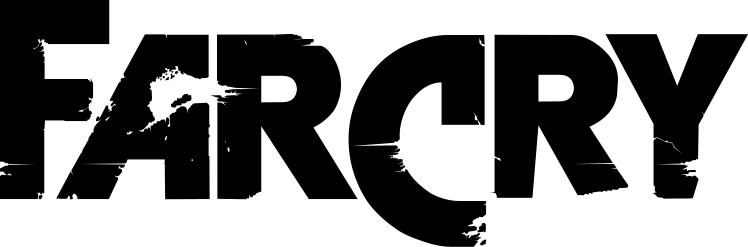
FarCry Font
Designed byMike Gumby Anderson
Today’s font is an eroded font named Far Cry. Most of the characters have a faded look which will give a punk, mysterious, scary, and edgy feel to the reader.
You can use it to write channel banners, murder documentary texts, horror movies and documents, and mystery puzzles. This gaming font does not contain all the characters and it only has uppercase letters.